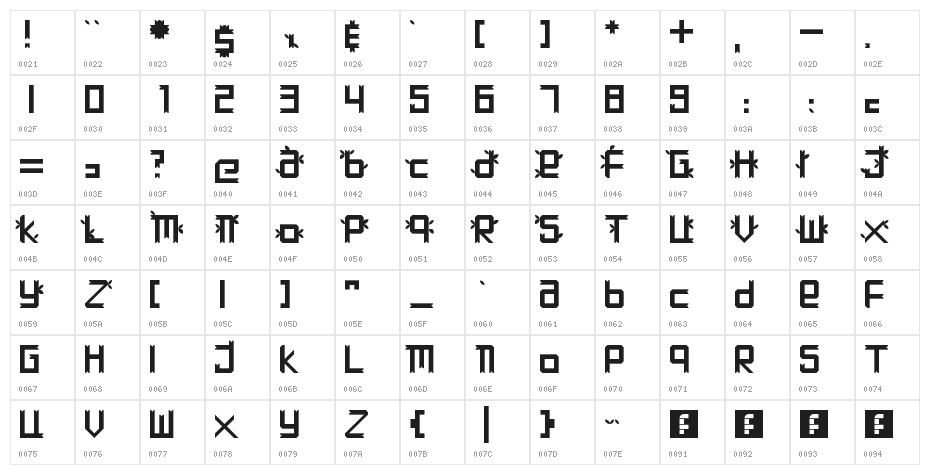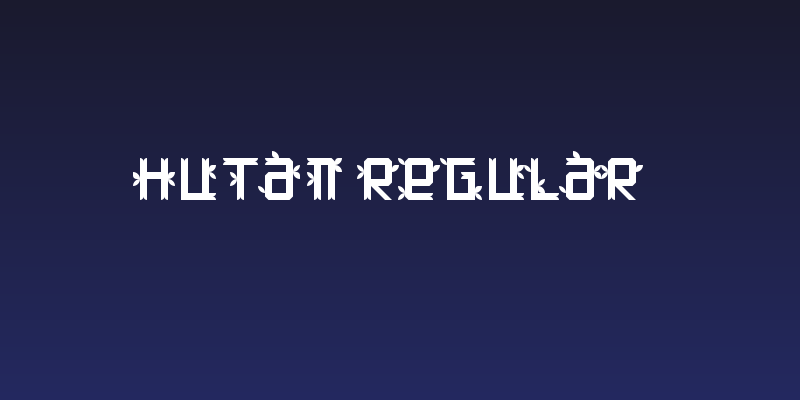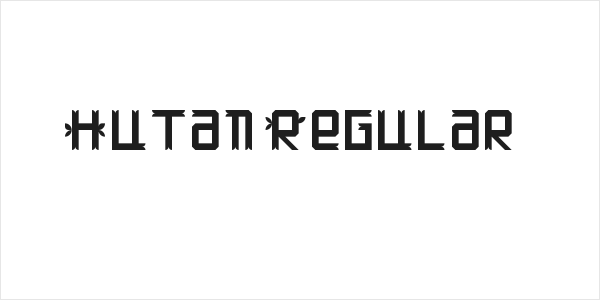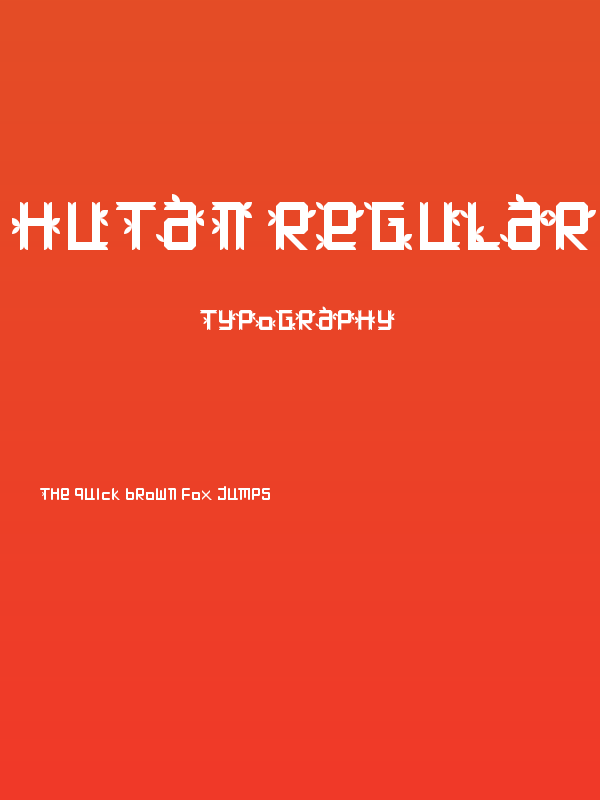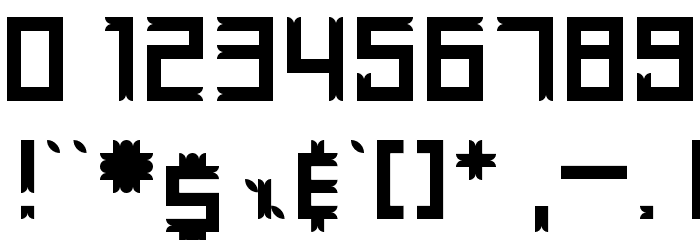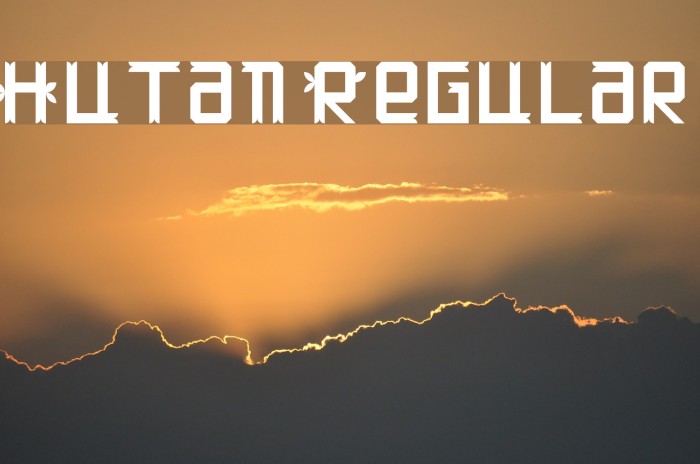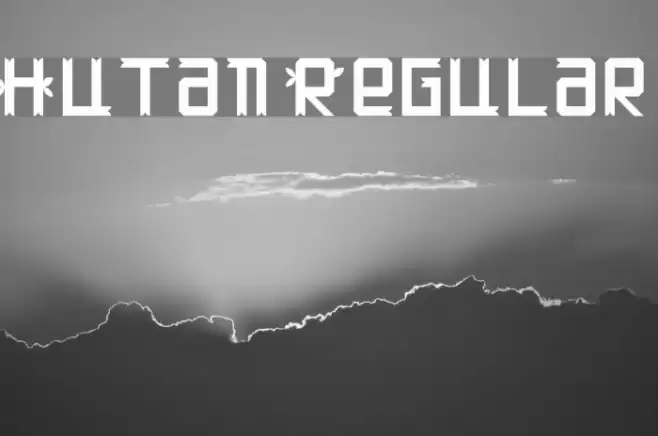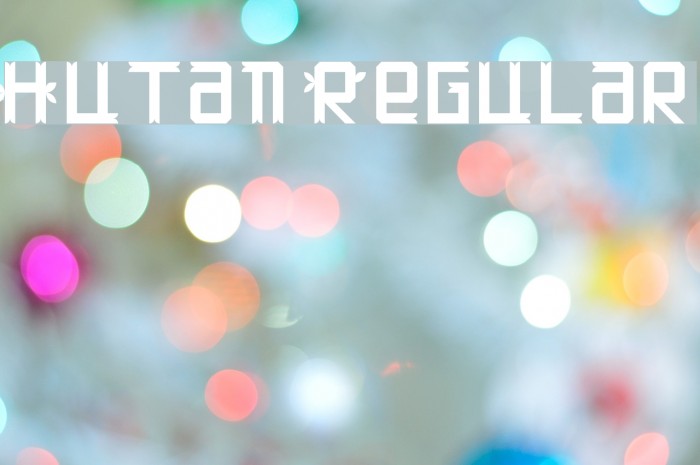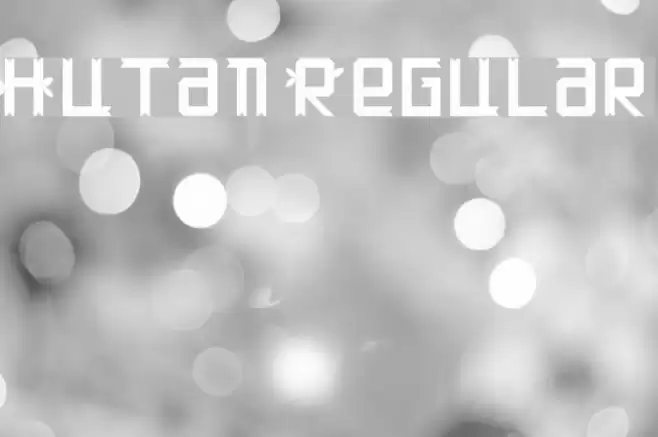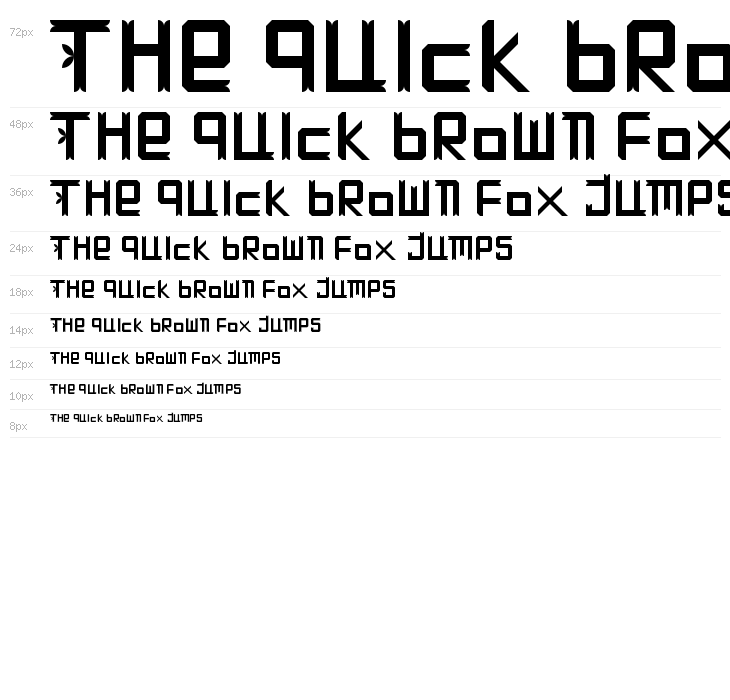
Hutan Regular Font
Hutan Regular Description
This font features a bold and geometric design with sharp angles and a distinct, edgy appearance. The characters are constructed with a unique, block-like structure that incorporates pointed edges and cut-out sections, giving it a futuristic and aggressive look. The uppercase and lowercase letters maintain a consistent style, while the numerals and special characters follow the same angular theme. This font stands out with its striking visual impact, making it ideal for projects that require a strong and modern aesthetic.
| Proposed Projects | Ideal for branding, posters, video game titles, and any design requiring a modern, edgy look. |